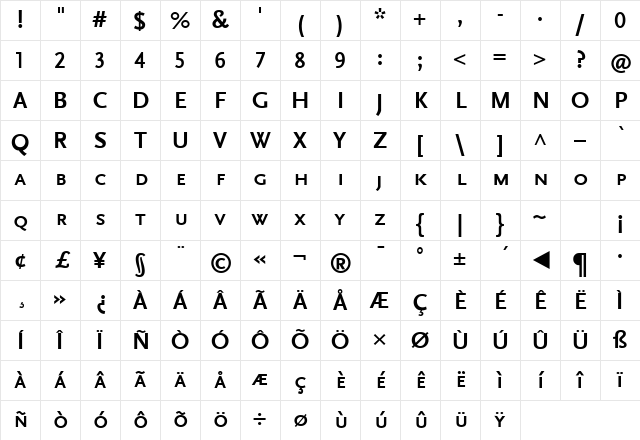
ADScalaSansCaps Bold Free Font
ADScalaSansCaps Bold
Design Context for ADScalaSansCaps
ADScalaSansCaps is a composed and adaptable typeface that performs quietly and consistently across a wide range of design contexts. Its bold stroke weight gives it real presence on the page.